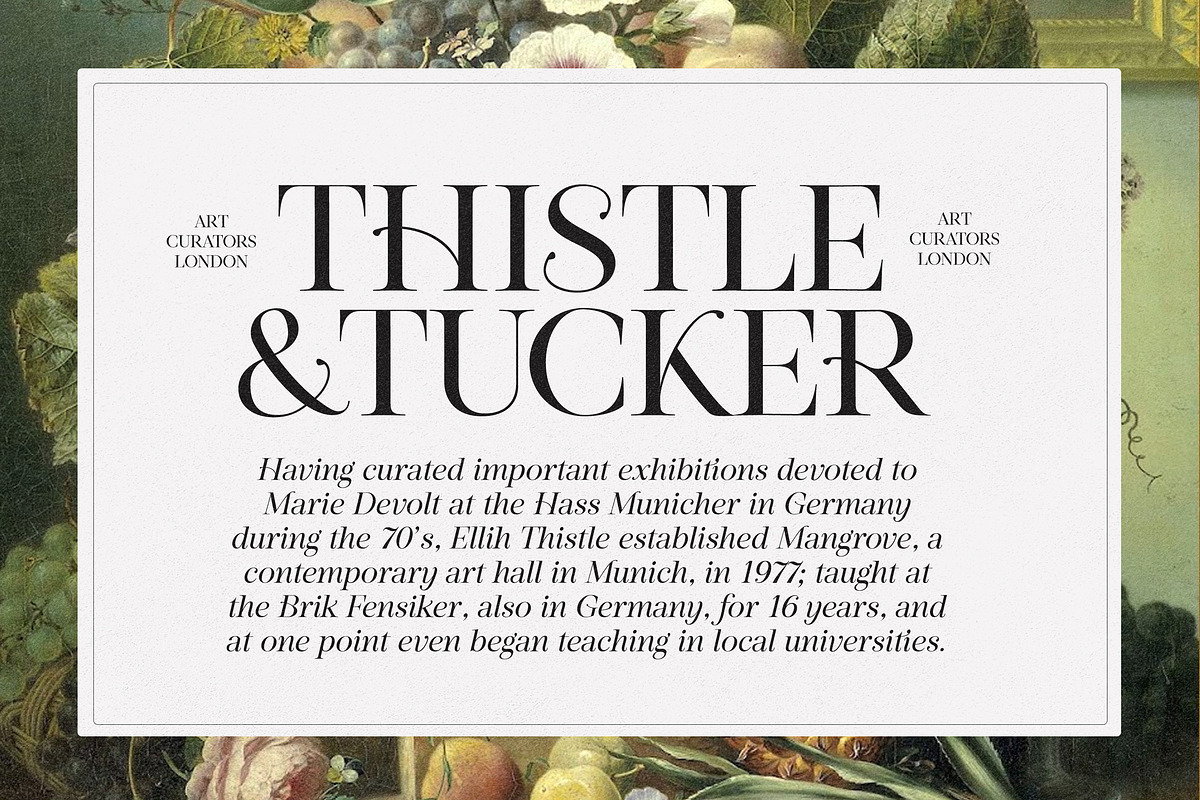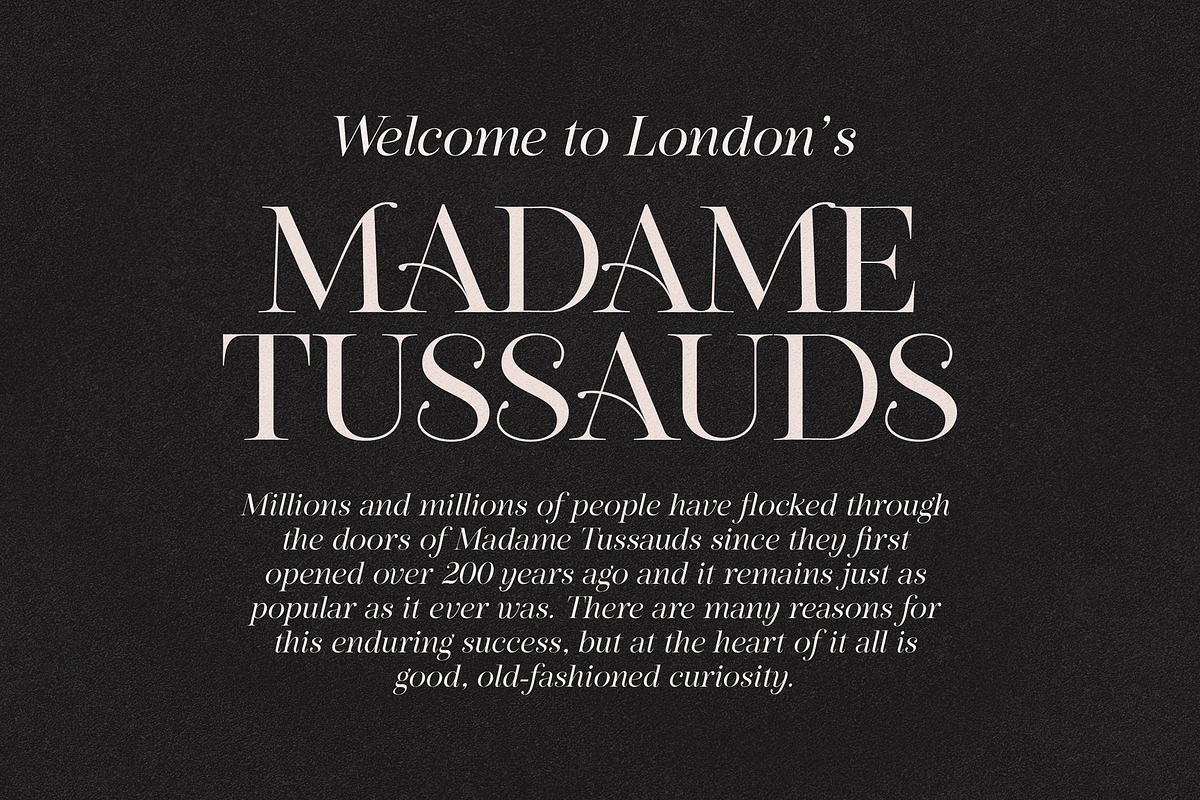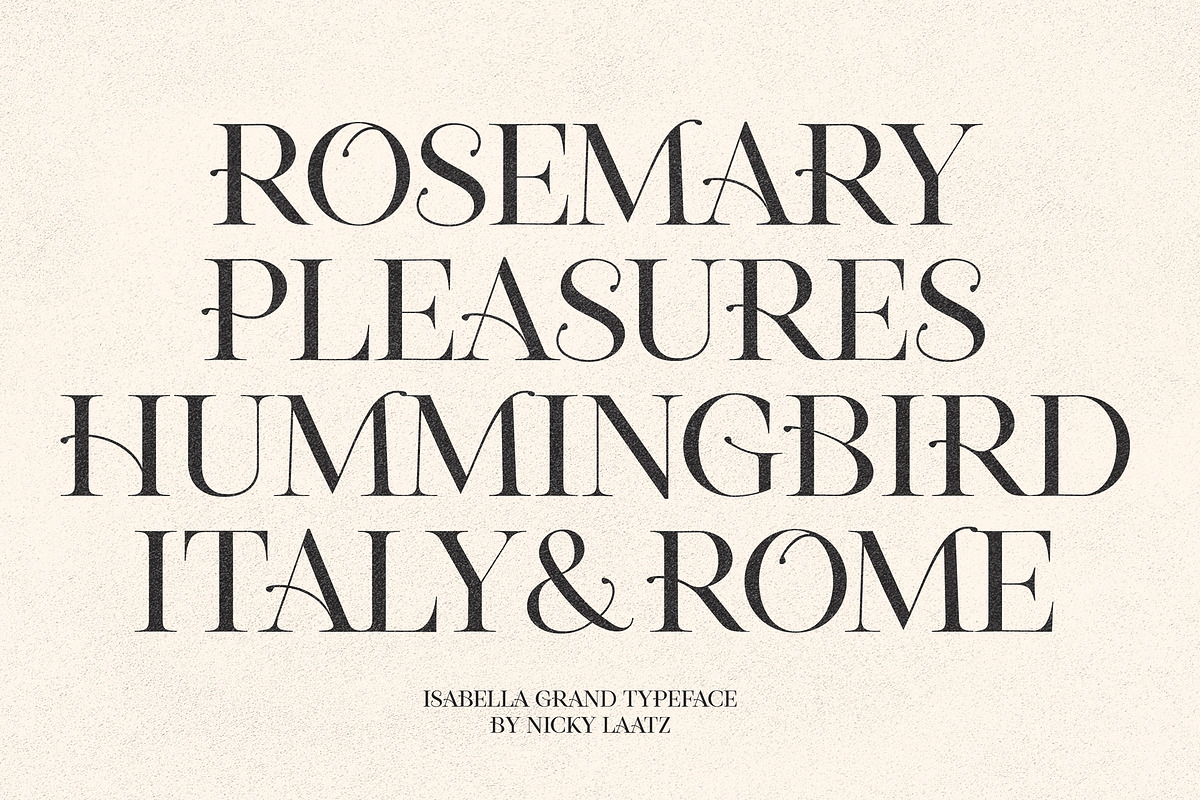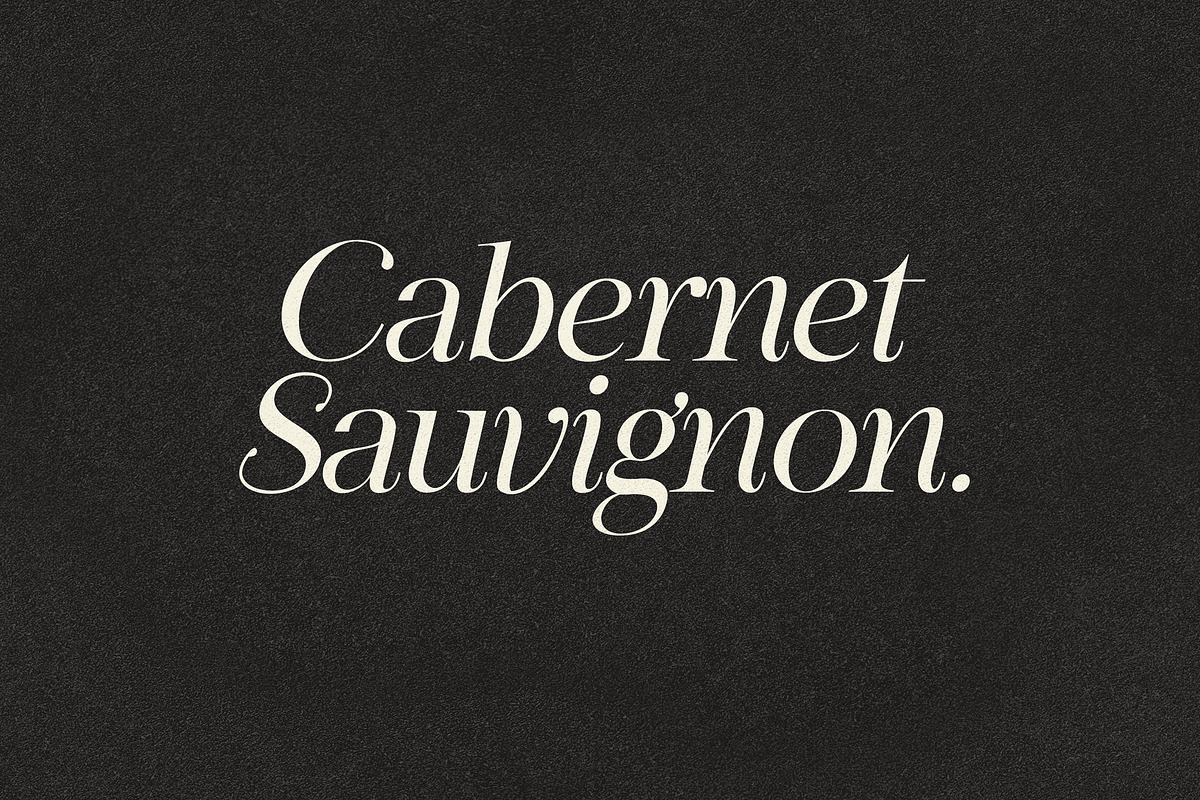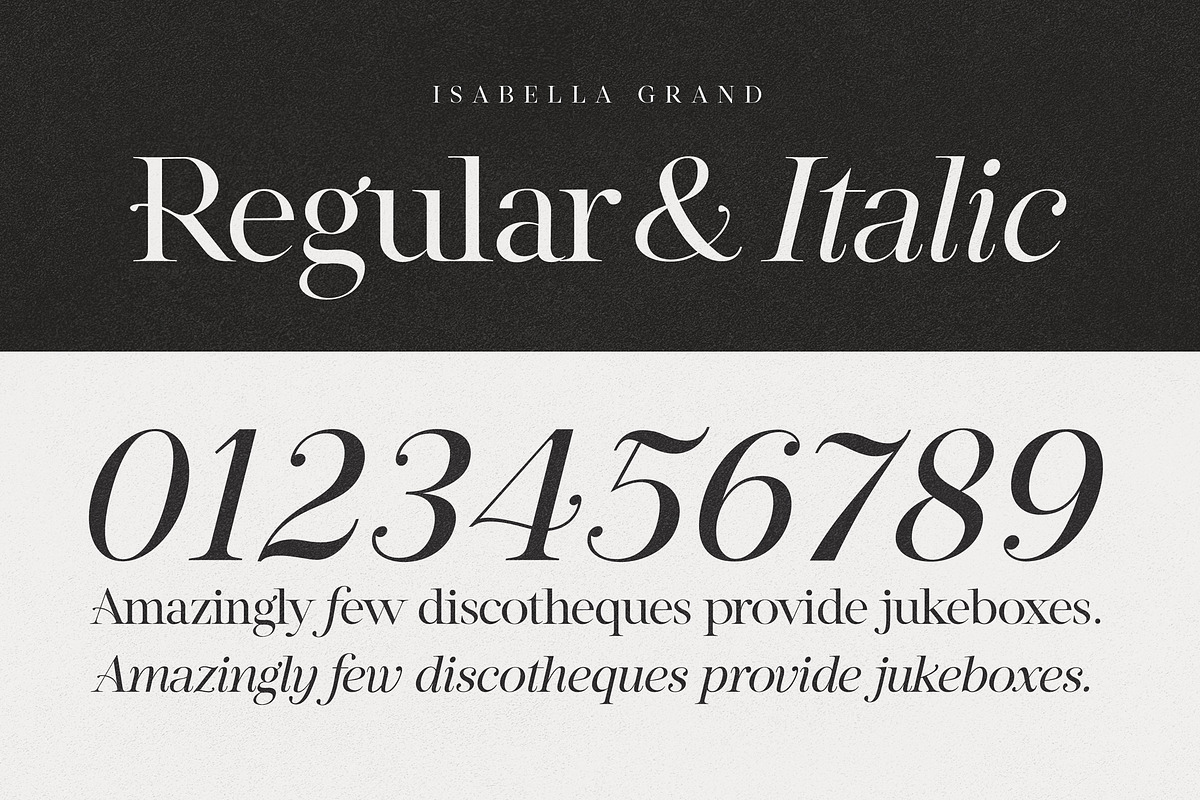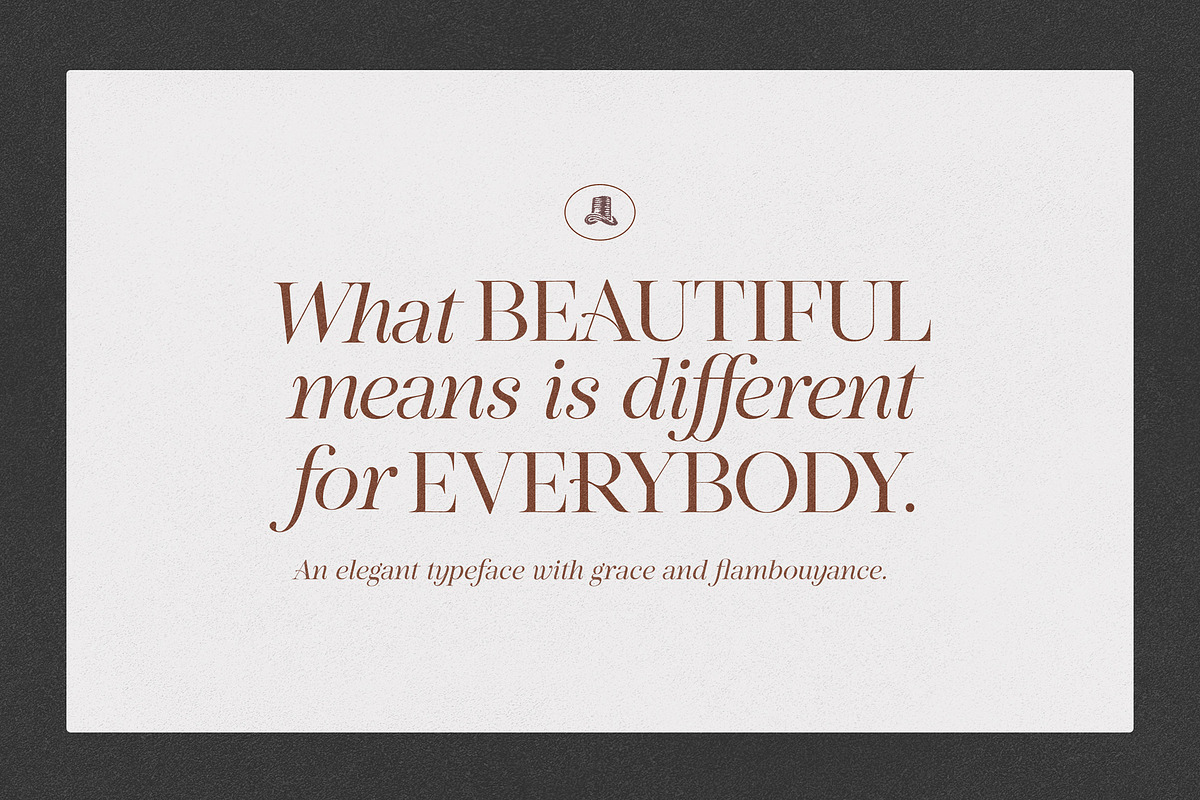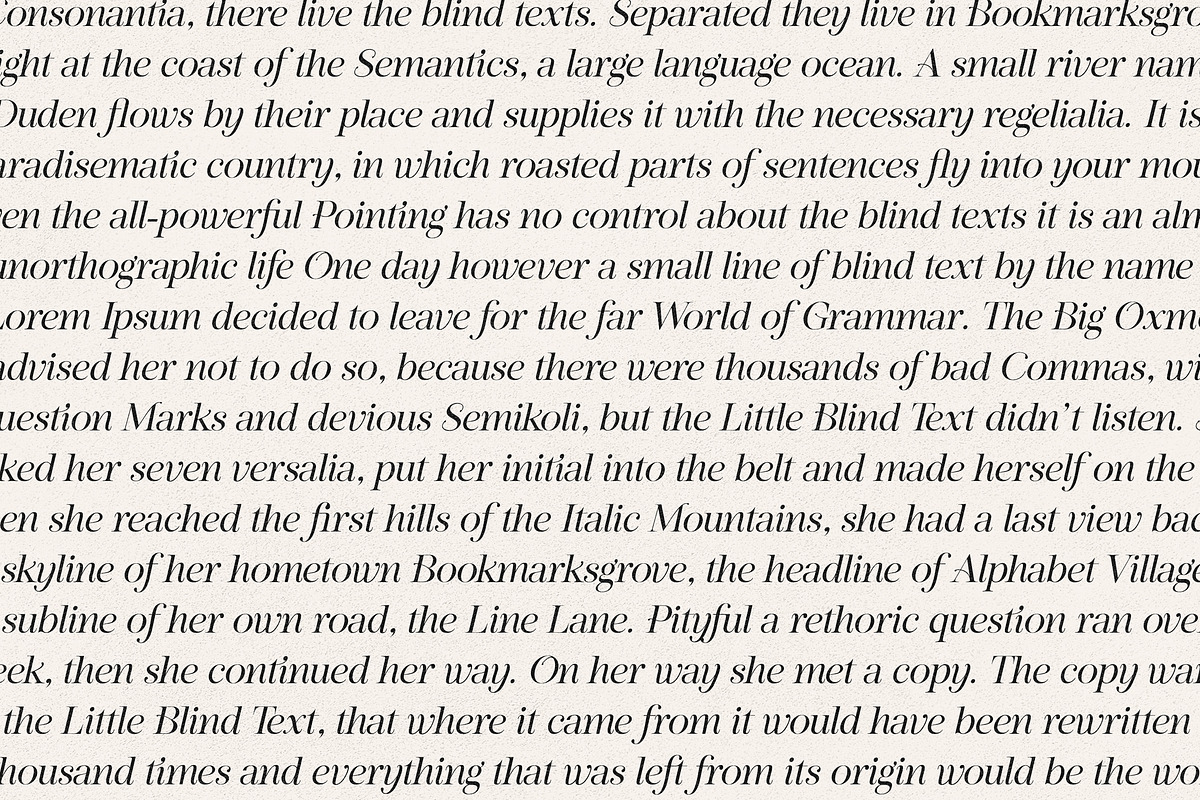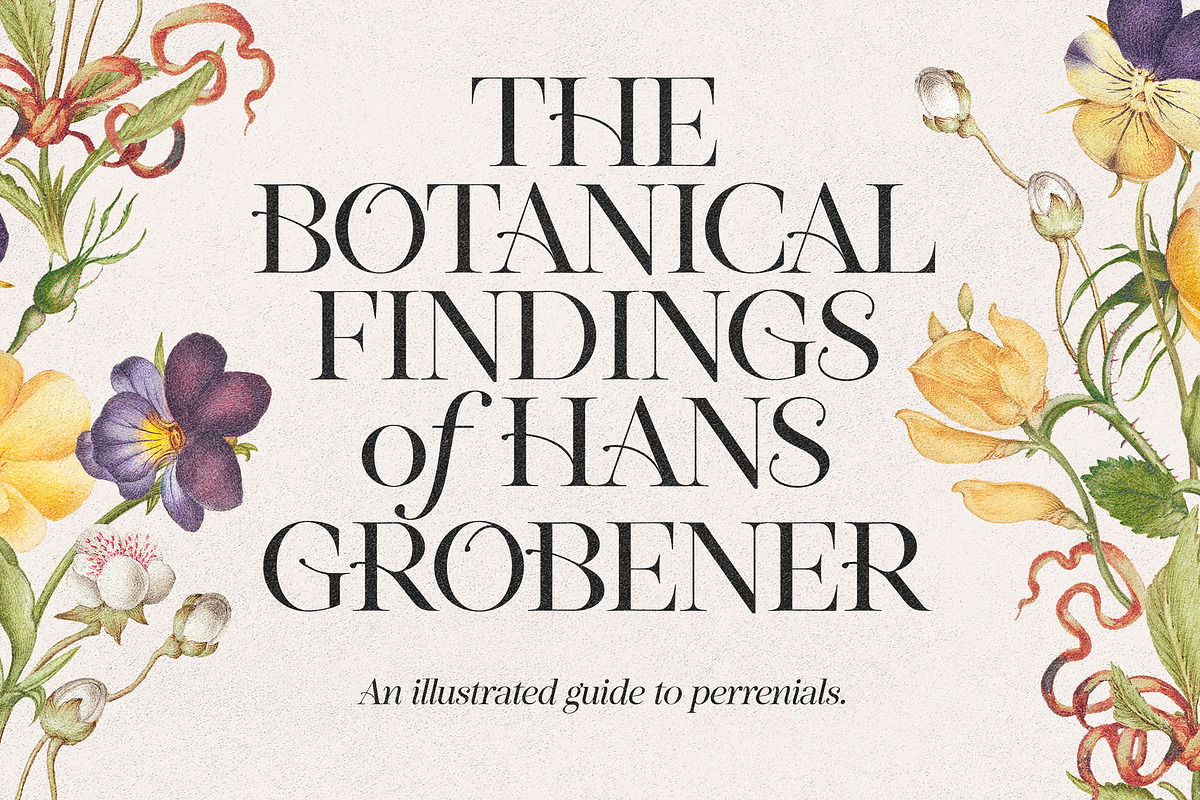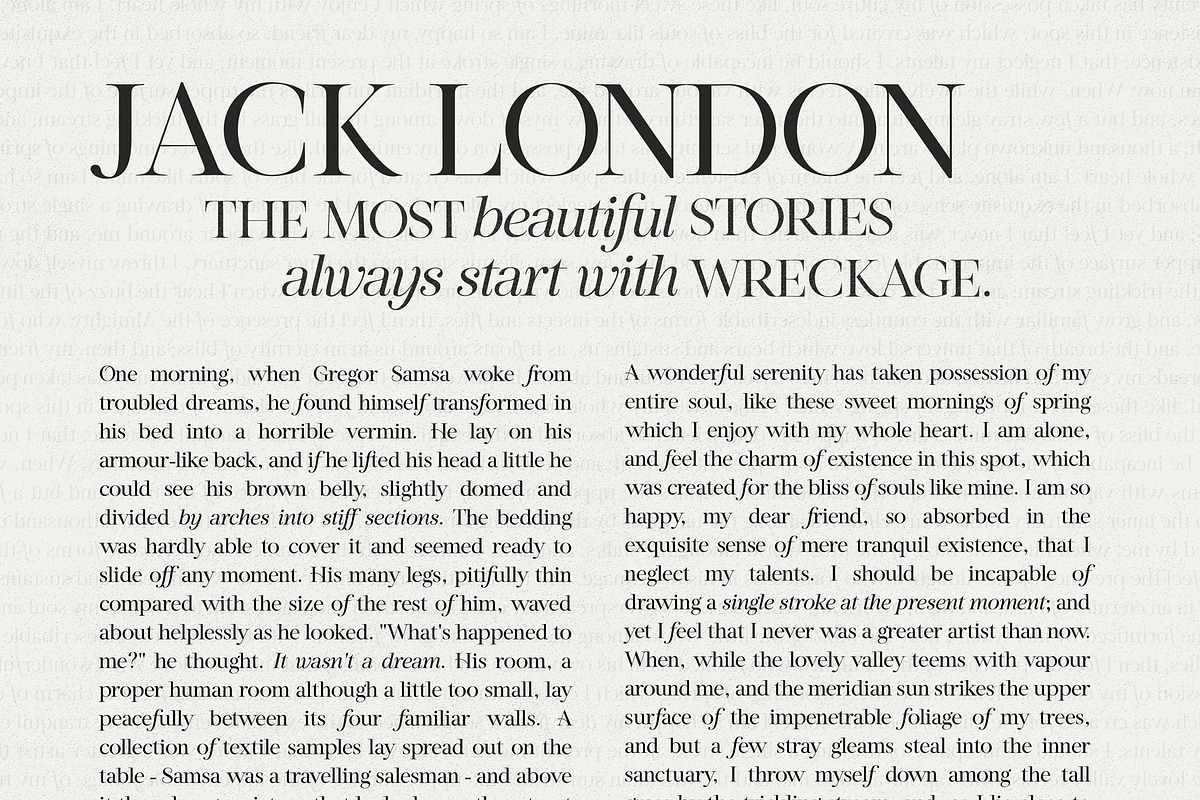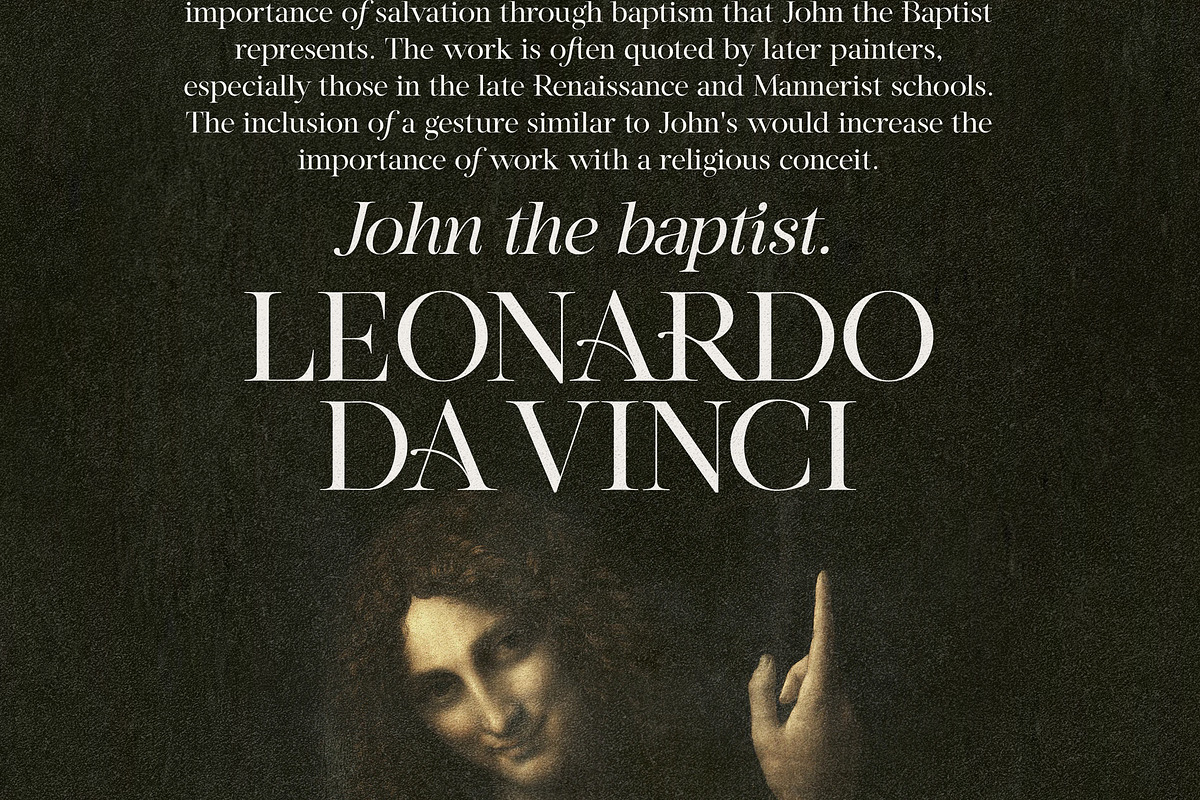
Isabella Grand Typeface
Style and Grace personified - say hello to Isabella Grand. This typeface has two main styles, Regular and Italic, that are designed to work elegantly in unison and apart.
The serif has a boldy different ' f', which sets it apart from regular serifs.....as Isabella Grand likes to stand out from the rest. A regular 'f' is included in its alternates, and a extra font style with a regular f is included for projects that require a more staid elegance.
The Italic style is dreamy, sultry and light-footed - a perfect partner for the more serious serif.
Less Fancy Uppercase : These are available via your OpenType Alternates as options. You need Opentype capable software to access these.
Double letter ligatures : Such as the fancy "ti" in the italic version, use your Opentype Ligatures to access these.You need Opentype capable software to access these.
Use them together or apart for stylish, stand-out type designs and projects.